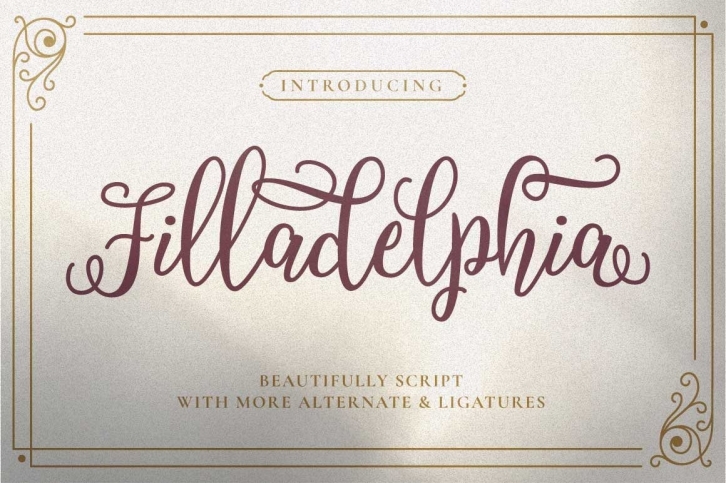
Filladelphia - Beauty Elegant Script FONT Download
Filladelphia - Beauty Elegant Script Font Download
Filladelphia is a beautiful font that was designed by Dirtyline Studio. It's a great choice for designers and creatives who need such a font. It was released on July 28, 2020 and the file size is 19.7 MB. Filladelphia may give a more youthful, expressive and casual look to your project. It is a very beautiful, refined, elegant, and high-quality font.